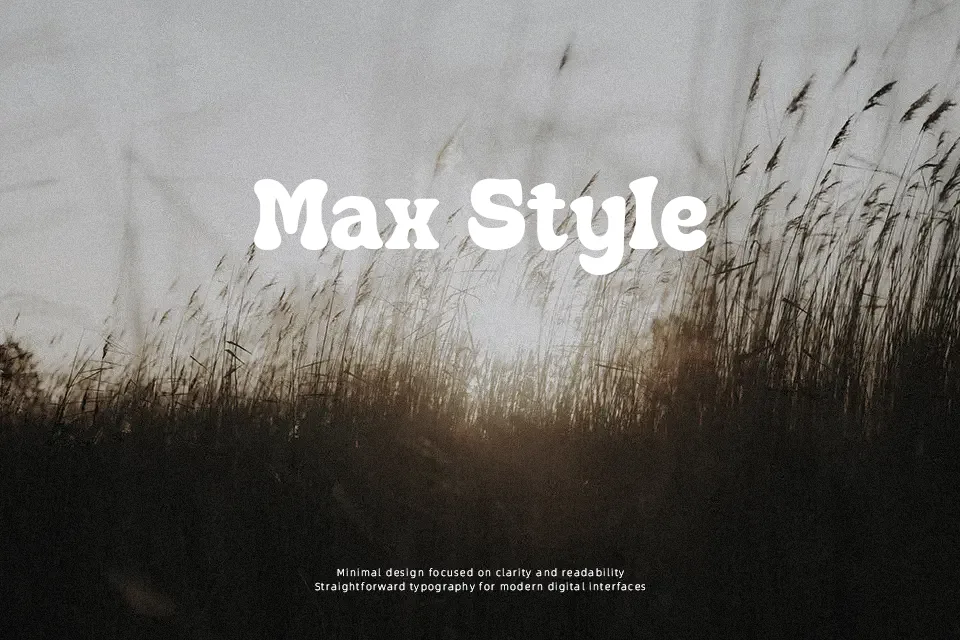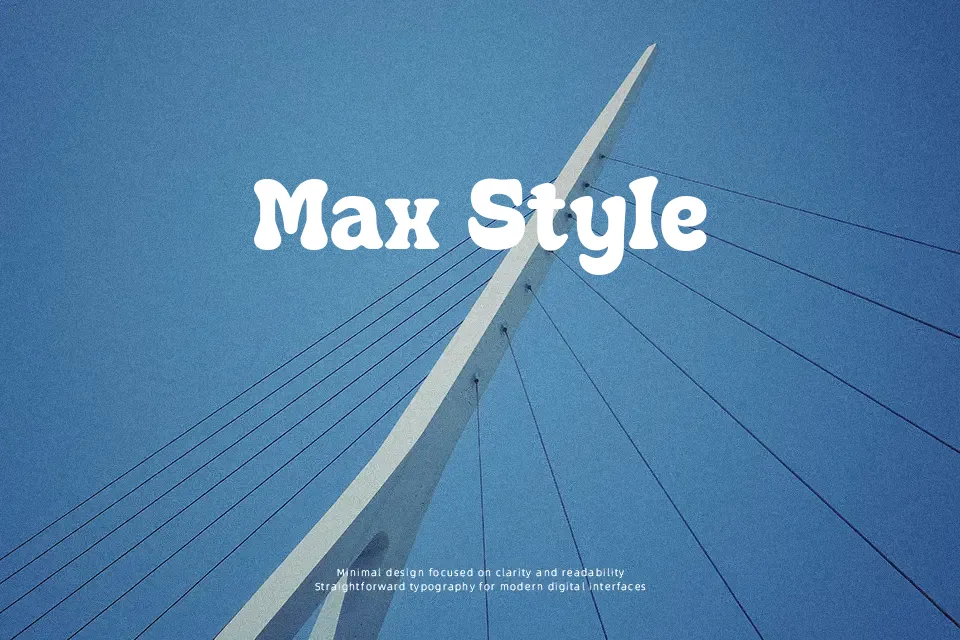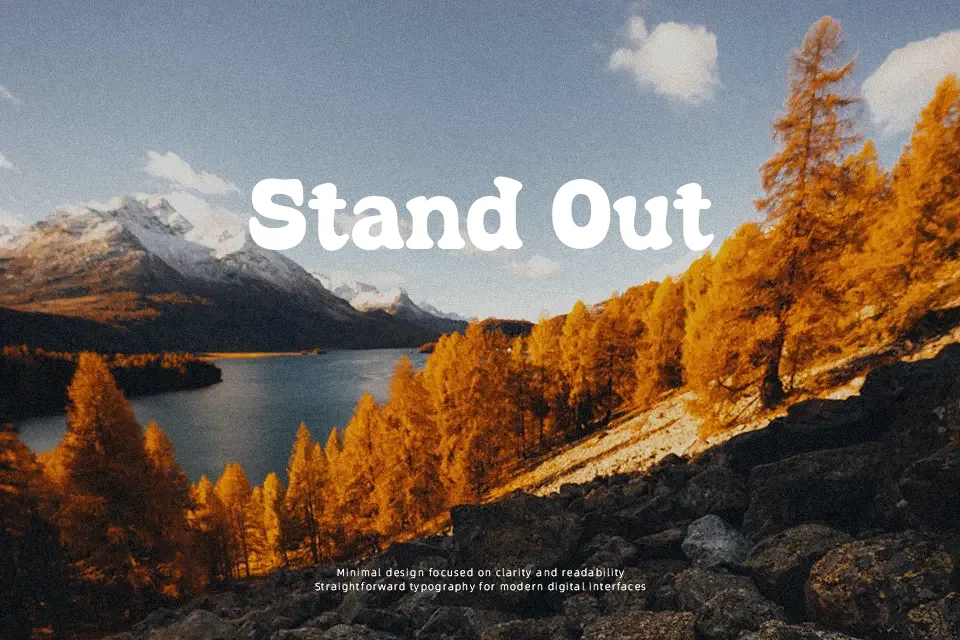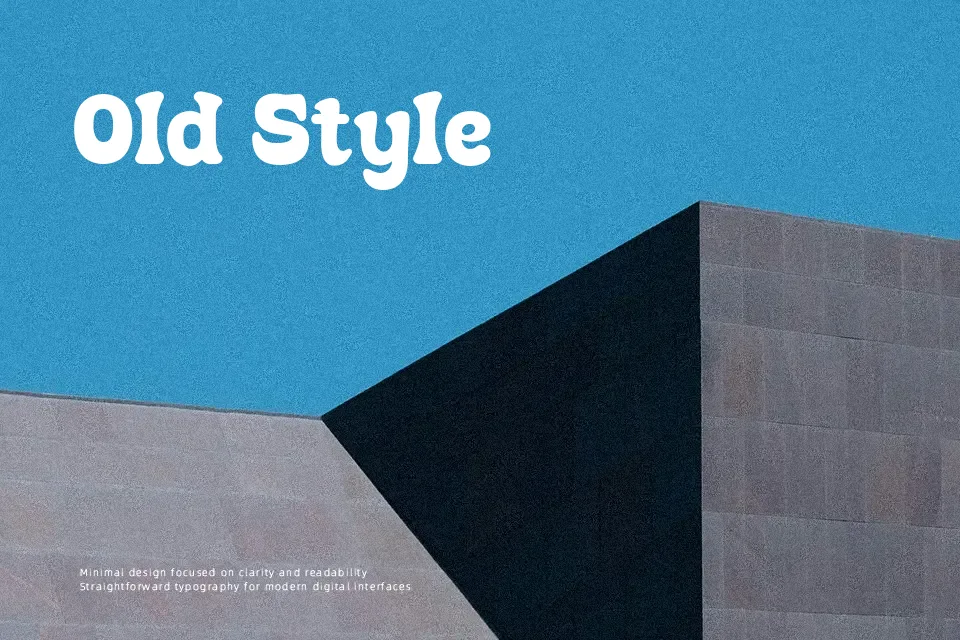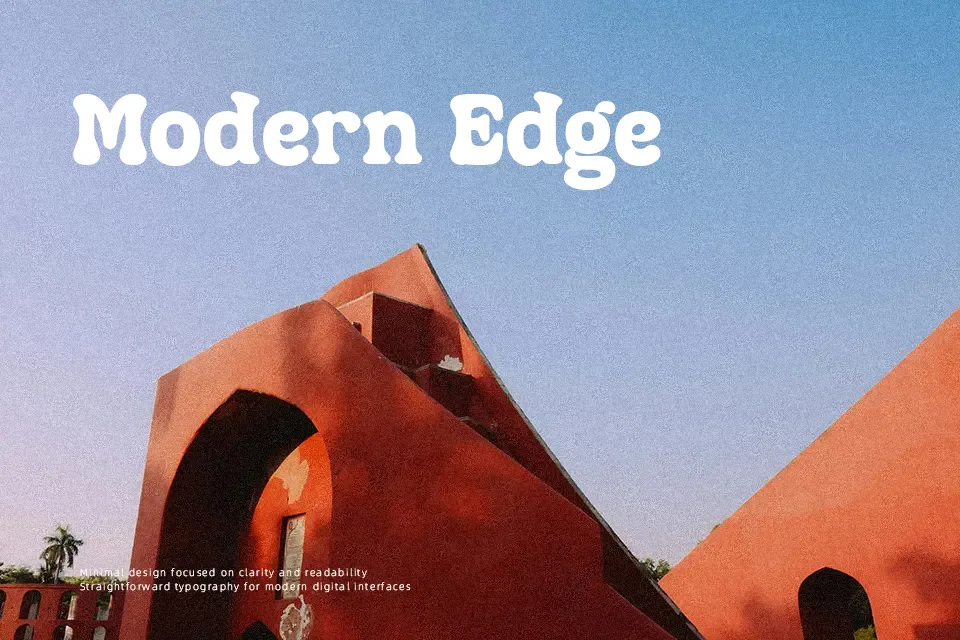
Snugle Font
Snugle Font uses thick, rounded forms with soft curves and a compact, decorative display rhythm. The letterforms appear broad and visually weighty, creating clear impact in short words and larger headlines. Its bold strokes maintain presence on posters, packaging, social graphics, and logo-oriented layouts, while the closely styled forms give display text a cohesive look. The spacing works best when the type is allowed room to stand on its own. Decorative shaping makes it less comfortable for small copy or extended reading, so it is more practical as a headline face than a text font.
Best For: poster headlines,product packaging,logo concepts,social media graphics
Perfect for headline, logo, and packaging, with a bold and decorative style.